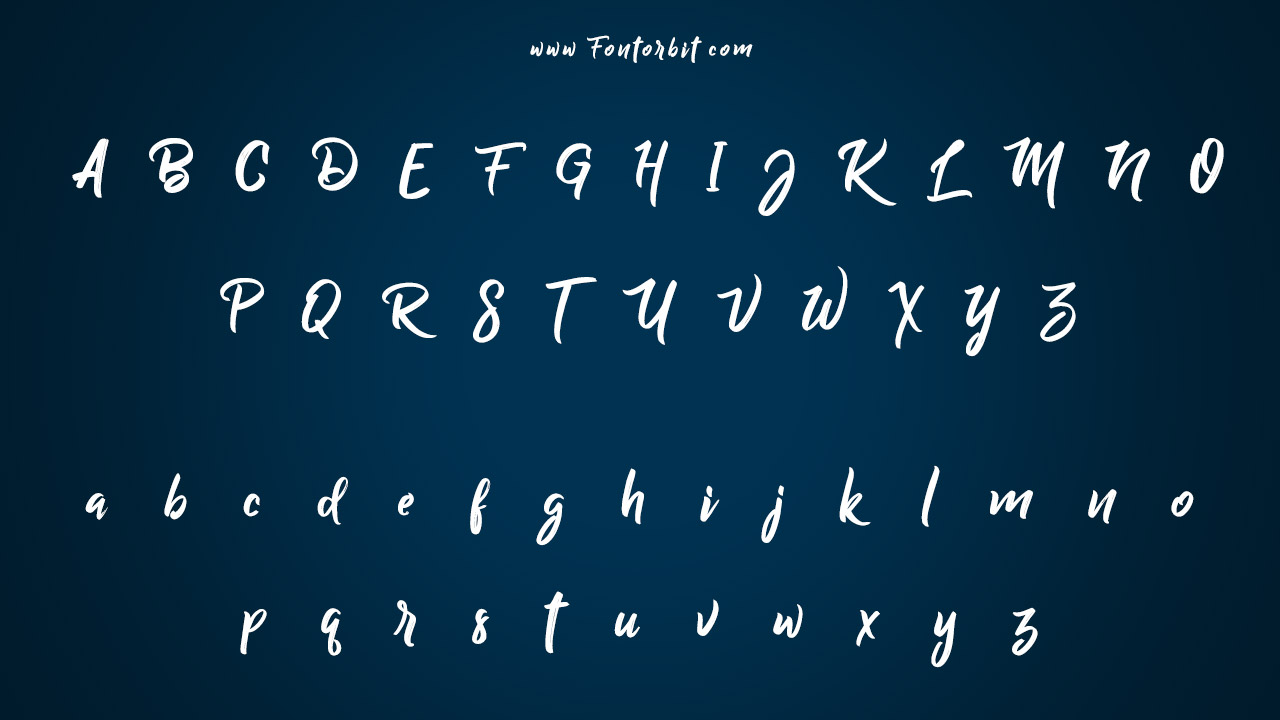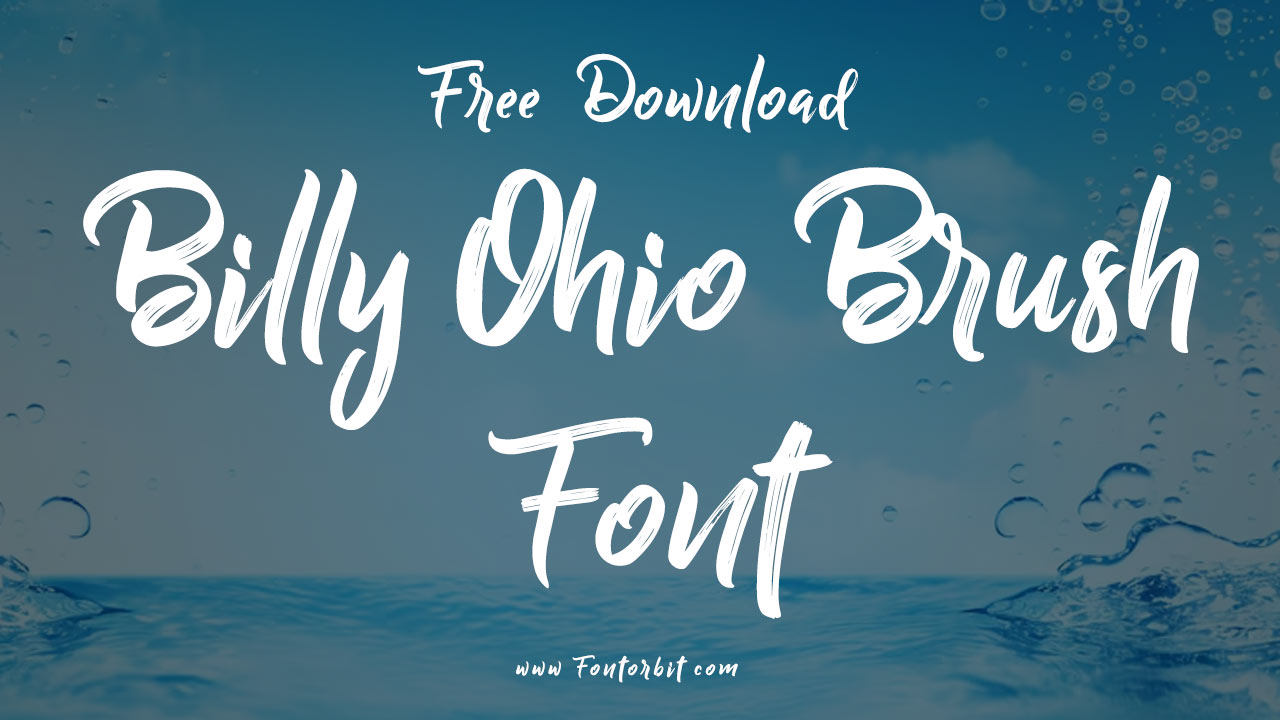
Billy Ohio Brush Font is a versatile brush script font designed by Alit Suarnegara and published by Alit Design.
This typeface captures the essence of natural hand-lettering, making it perfect for projects that require a rustic and casual touch. Billy Ohio was first released in [year of publication], and since then, it has gained popularity due to its artistic and informal appeal.
Billy Ohio Brush Font Family Includes
The Billy Ohio font family is designed to convey a handcrafted feel with modern, playful strokes. It is highly versatile, adaptable for various designs, from logos to posters, and gives an authentic feel to digital and print projects alike.
The font family includes several variations for flexibility and creative freedom:
a. Billy Ohio
b. Billy Ohio Dua
c. Billy Ohio Swash
Notable Uses Of Billy Ohio
Billy Ohio’s unique and playful brush strokes make it ideal for the following occasions:
- Logos and branding
- Wedding invitations
- Posters and flyers
- Social media posts
- Merchandise and apparel designs
Billy Ohio is perfect for projects that require a relaxed, informal, yet stylish look. It is highly effective for:
- Branding and logos that need to stand out
- Wedding stationery where personalization matters
- Social media graphics with a casual yet creative vibe
- Apparel and product design for a handmade aesthetic
Billy Ohio Brush Font Character Map:
Billy Ohio is a great brush script font that brings a modern touch to handcrafted designs. Its versatility allows you to use it in various projects, from branding to social media. Whether you’re creating a logo, designing wedding invitations, or working on posters, Billy Ohio is a strong contender.
3.What Type Of Projects Is Billy Ohio Best For?
It is best for casual and playful projects like branding, invitations, and social media designs.
5.Does Billy Ohio Include Ligatures And Alternates?
Yes, the font comes with ligatures, alternates, and swashes to add diversity to your designs.
6.Can I Use Billy Ohio For Web Design?
Yes, it is adaptable for both web and print designs.
8.Is Billy Ohio Suitable For Long-Form Text?
It is better suited for headlines and short text rather than long paragraphs.